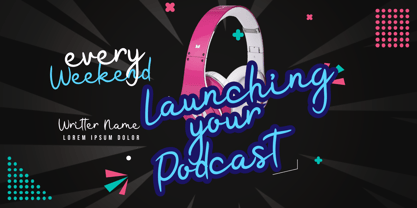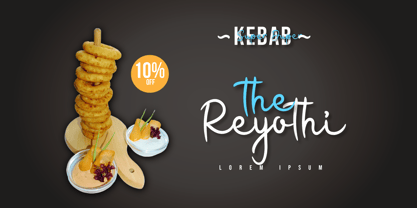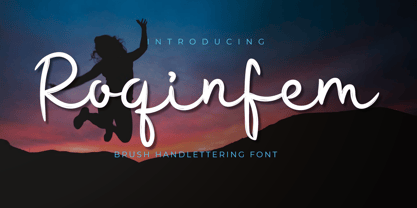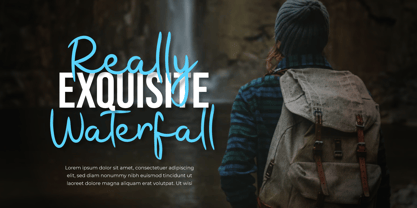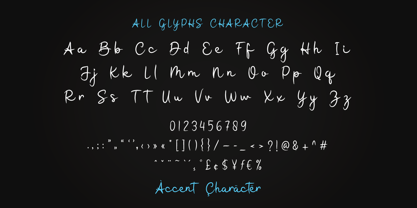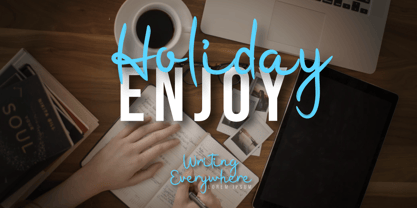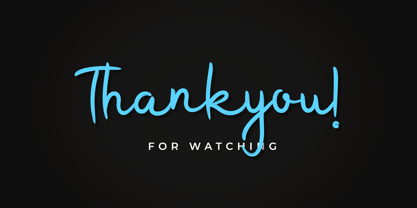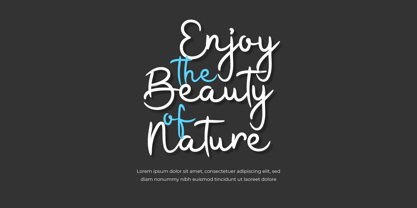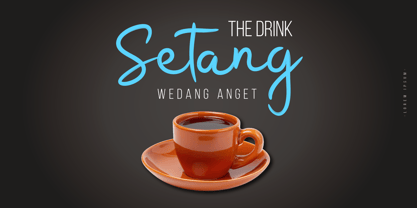
Roqinfem
The Roqinfem Font Family was designed by Lita Faolina and published by Product Type. Roqinfem contains 1 styles.
Find inner peace and serenity with Roqinfem - Brush Handwritten Font. With its soothing strokes and calming design, this font creates a tranquil atmosphere, perfect for projects that aim to evoke a sense of balance and harmony. Whether you're designing meditation guides, crafting wellness brochures, or creating relaxing social media graphics, Roqinfem helps your audience find solace in a chaotic world. Embrace calmness and mindfulness with Roqinfem - the font that's as soothing as a gentle breeze, guiding your audience towards a state of inner peace and tranquility.